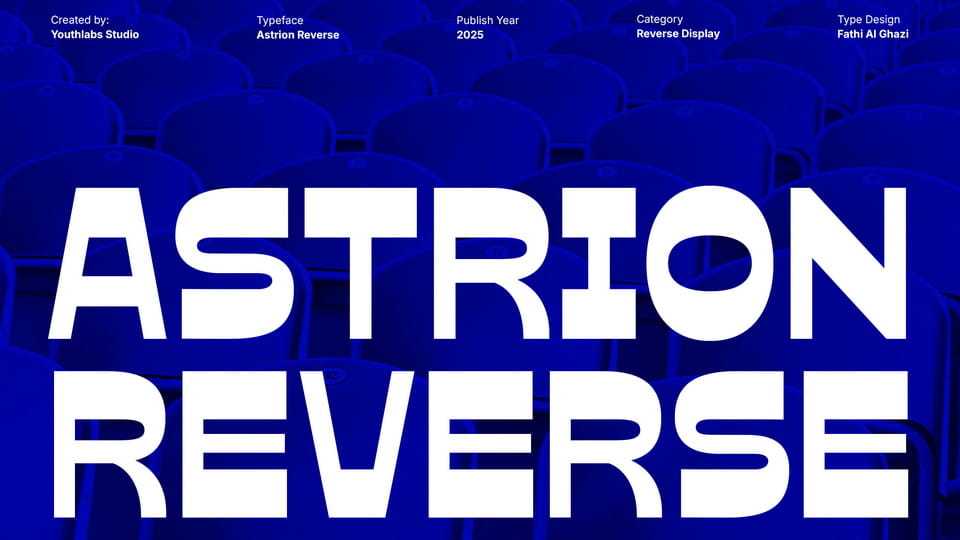
Download Astrion Reverse font, a bold, futuristic reverse-contrast display typeface designed to command attention. Its unique structure flips traditional contrast rules, giving each letter a striking, modern, and experimental appearance.